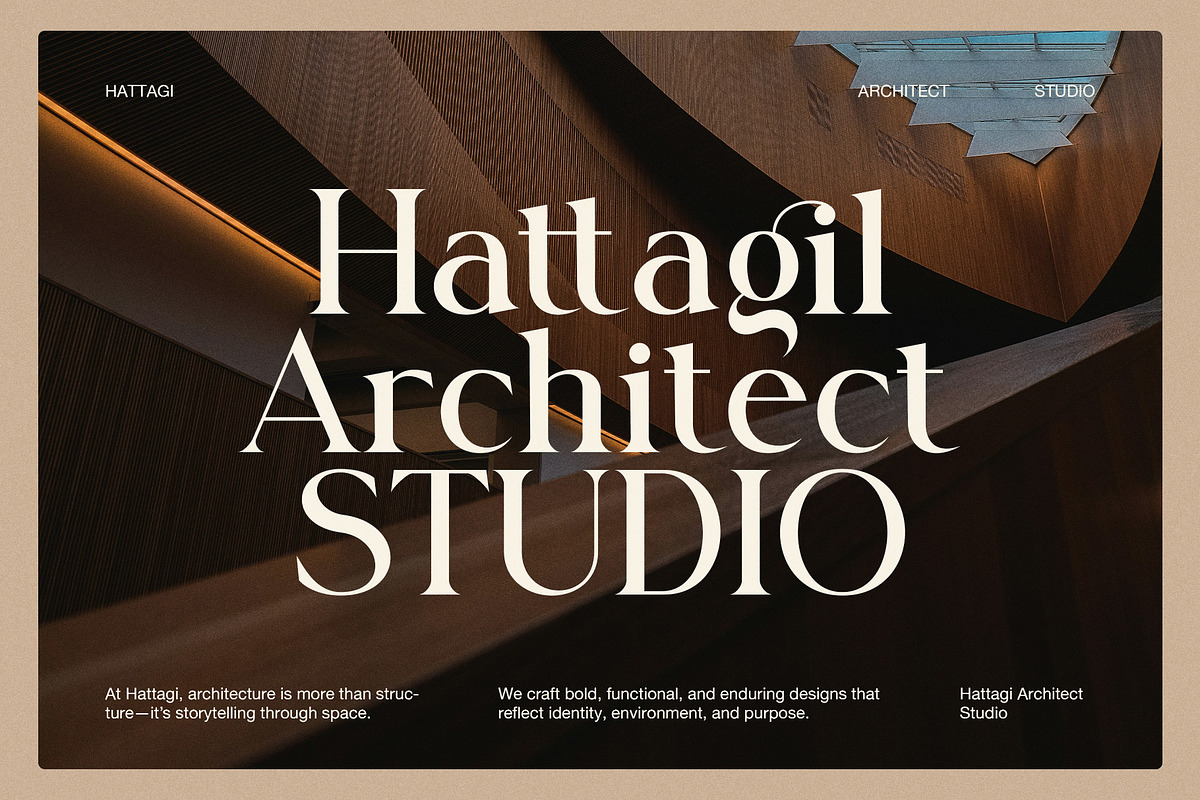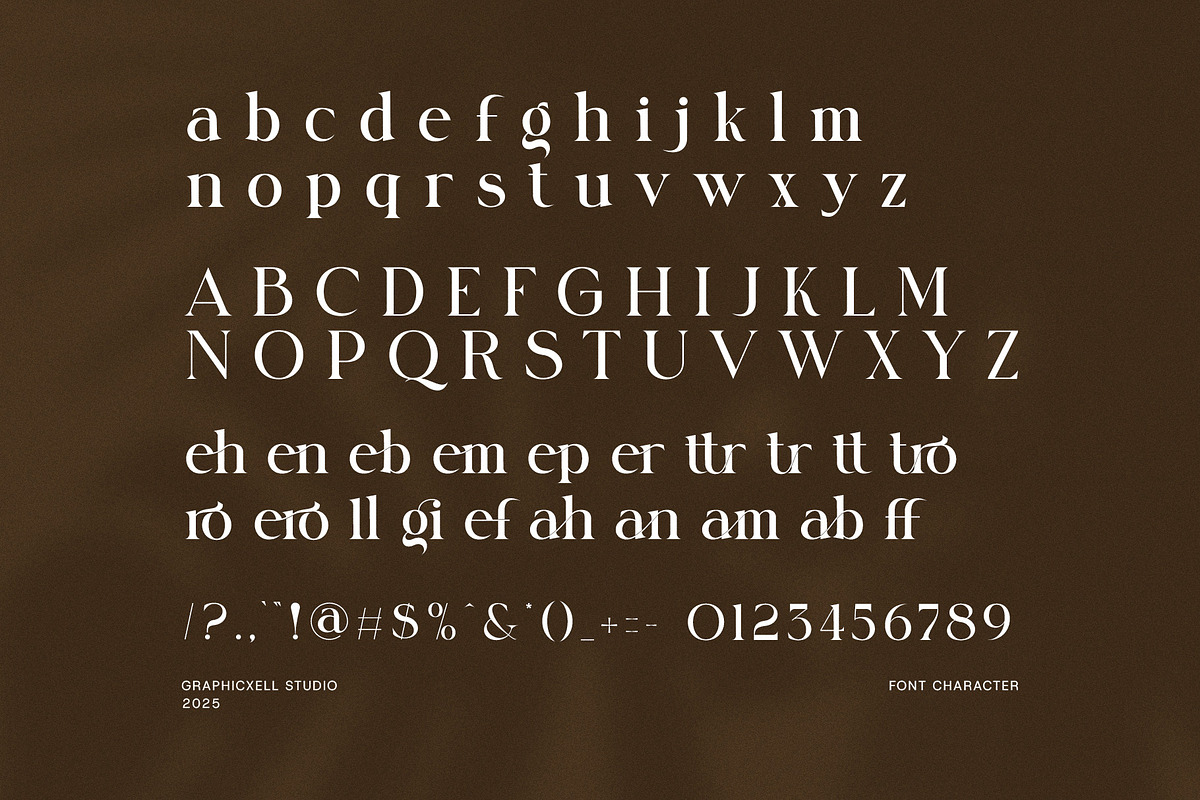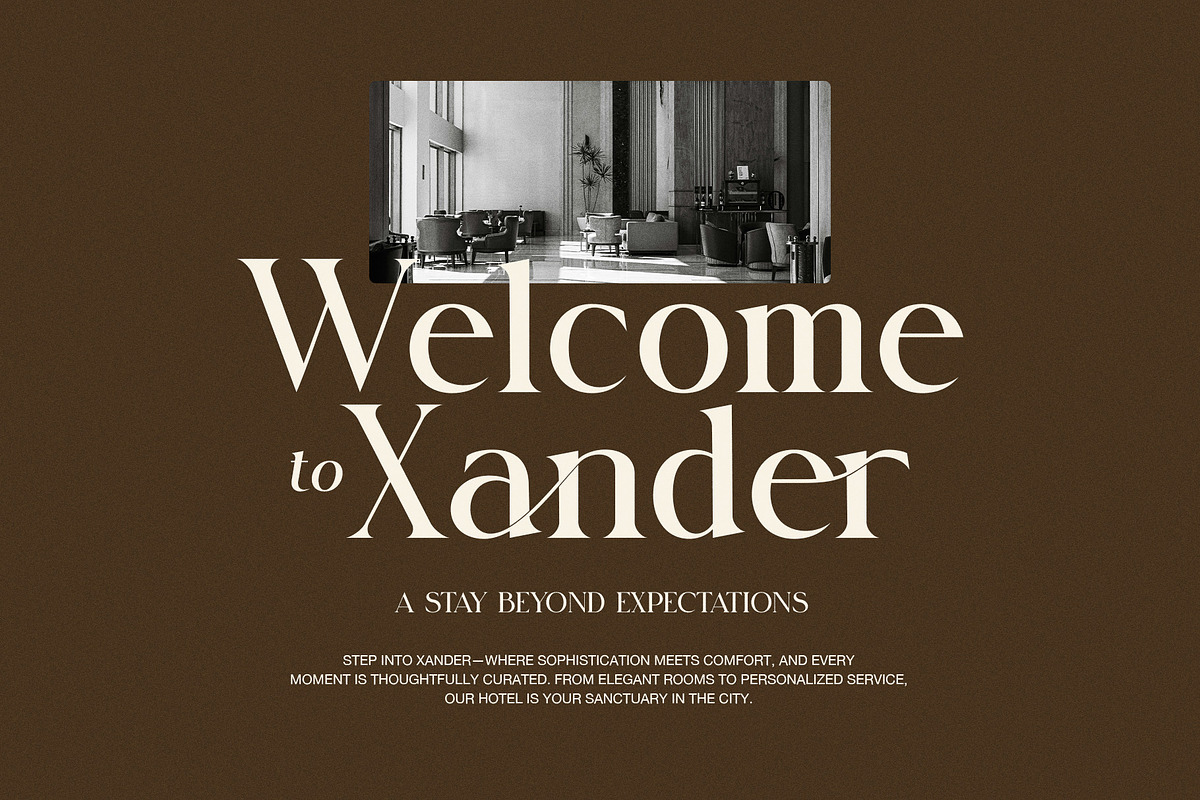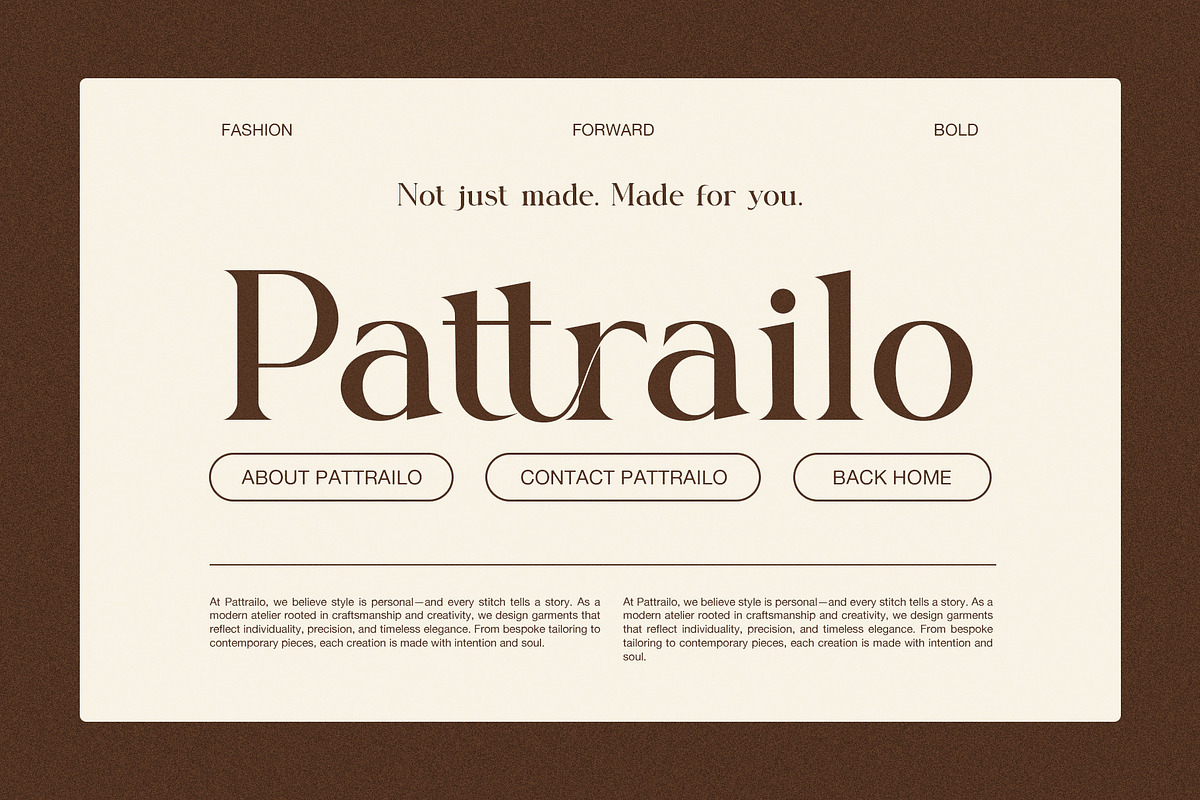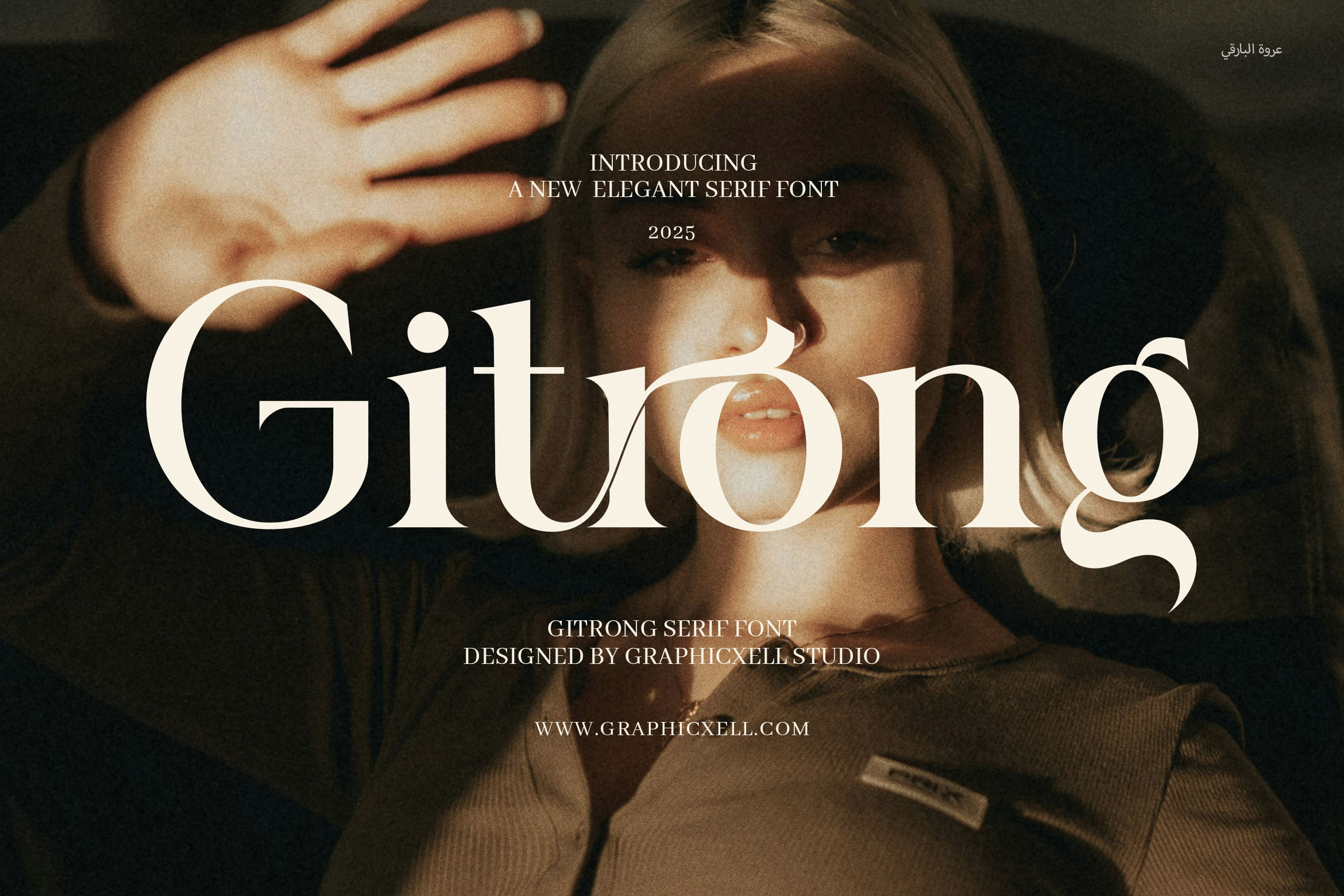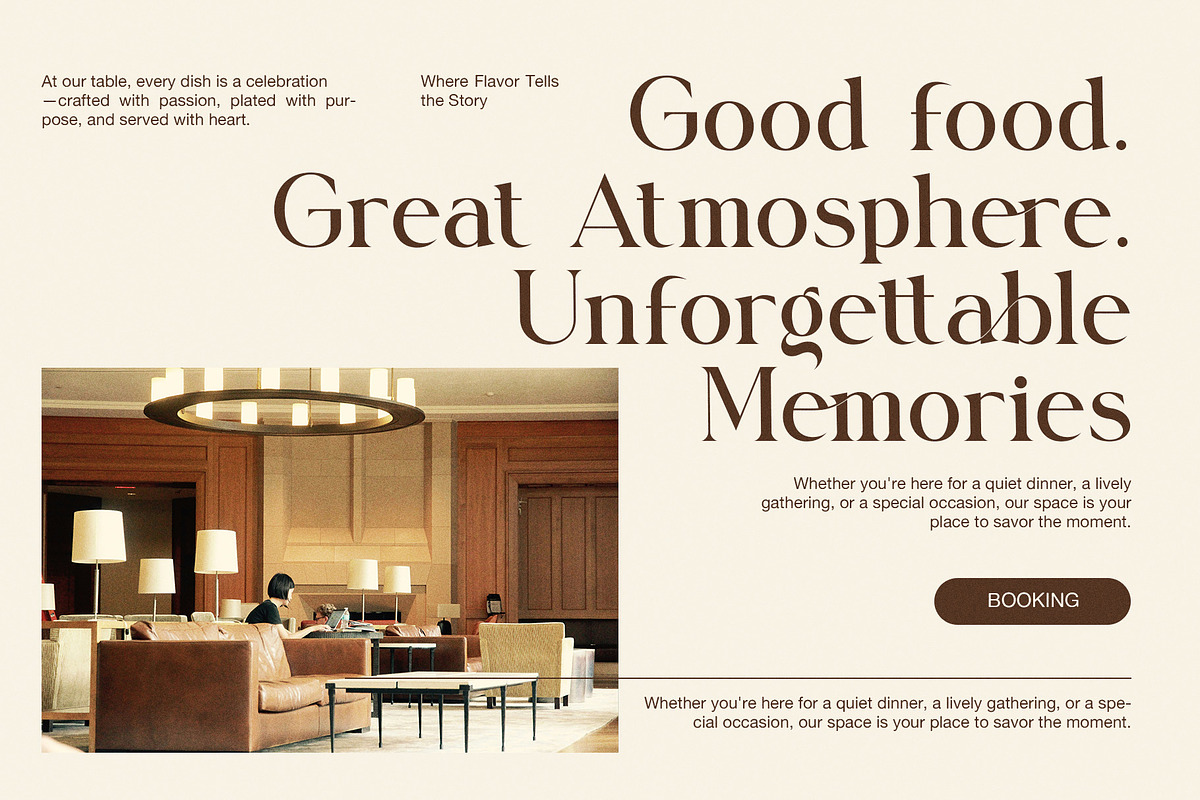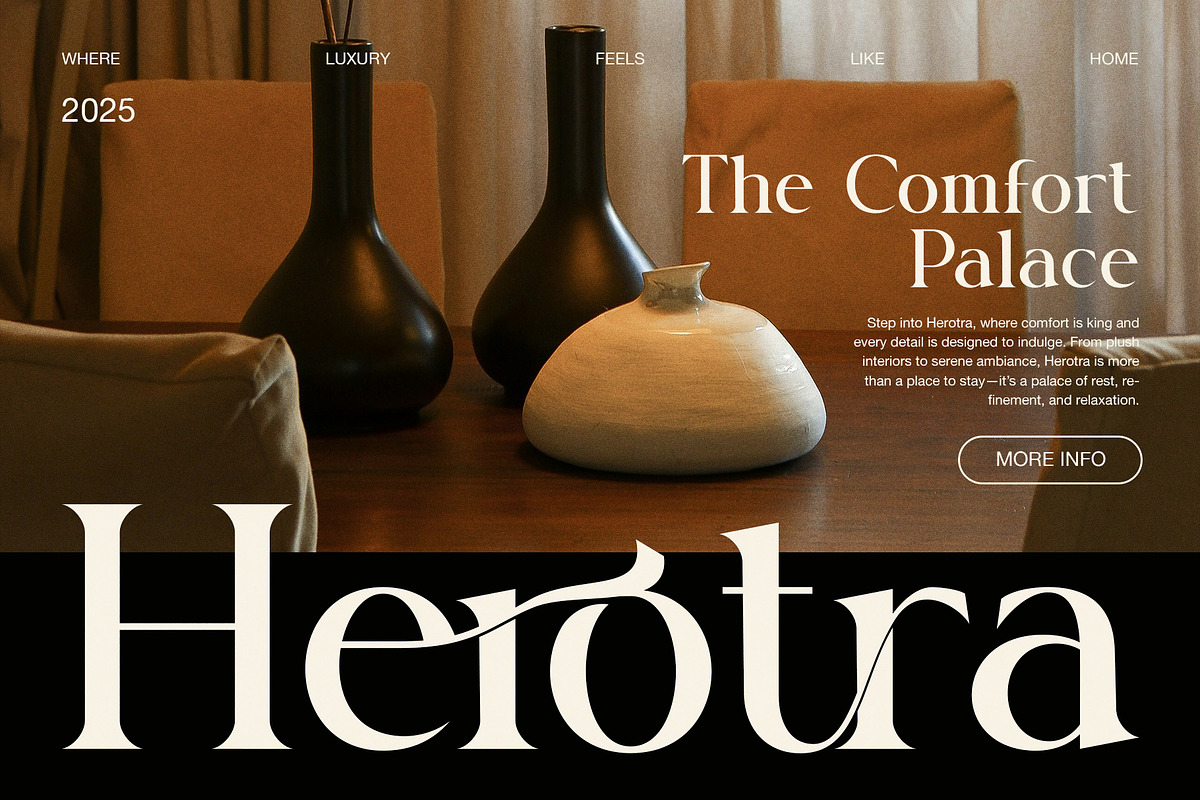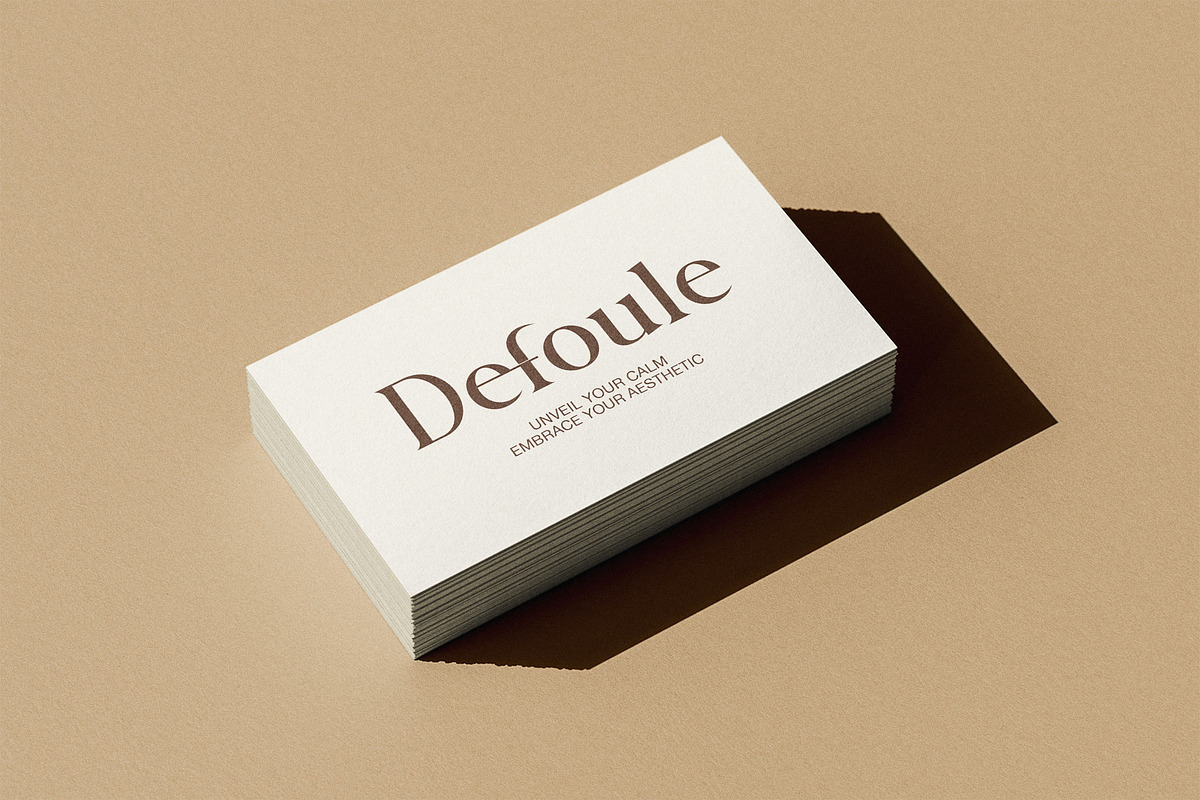
Gitrong Elegant Serif Font
Gitrong Elegant Serif Font is a refined and contemporary typeface that combines timeless serif structure with modern sophistication. Designed with attention to detail, Gitrong stands out through its elegant ligatures, graceful curves, and versatile alternates that elevate any visual project. Whether you're designing for high-end branding or editorial content, this font delivers a luxurious and artistic aesthetic that captures attention.
This modern serif font exudes a sense of class and professionalism, making it ideal for upscale logos, boutique branding, magazine headlines, and fashion-forward websites. Gitrong’s stylish letterforms and refined serifs offer a clean yet expressive look that feels both trendy and classic — perfect for designers seeking a font with personality and polish.
Its smooth alternates and decorative ligatures create fluid compositions, making it a dream for typographic play in packaging, advertisements, product labels, and social media graphics. Whether you’re creating a sophisticated brand identity, a chic fashion label, or a sleek editorial layout, Gitrong gives you the tools to make a bold and elegant impression.
Optimized for both print and digital applications, Gitrong Elegant Serif brings timeless beauty to modern design. It’s not just a typeface — it’s a statement of style, finesse, and creativity. Discover the perfect balance of tradition and innovation with this must-have serif font for your next design project.